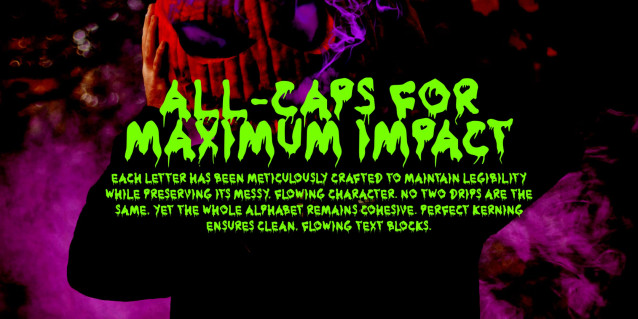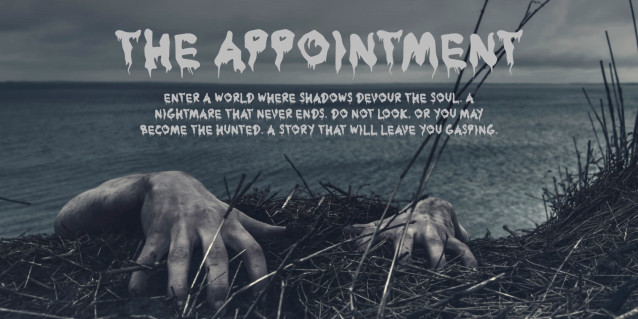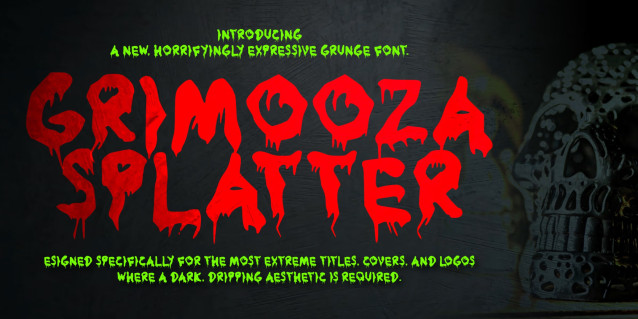
Grimooza Splatter Spooky Font
Grimooza Splatter is a bold and chaotic horror display font inspired by dripping slime, spooky creatures, and vintage monster aesthetics. Its irregular, melting letterforms create an eerie and playful atmosphere, making it perfect for Halloween-themed projects, horror movie posters, game titles, YouTube thumbnails, party invitations, merchandise, and eye-catching branding. With its distinctive handcrafted look and strong visual impact, Grimooza Splatter brings a creepy yet fun personality to any design that demands attention. Ideal for spooky headlines, themed events, comic covers, social media graphics, and unforgettable horror-inspired creative projects.
Featuring a gritty texture, raw strokes, and dynamic ink splatter details, this font captures a rebellious street art and underground subculture aesthetic. It is meticulously designed to bring a powerful, high-energy impact to creative projects. Ideal for t-shirt graphics, streetwear designs, metal or punk music album covers, horror-themed merchandise, game titles, action sports promotion, and striking poster layouts. Grimooza Splatter is the perfect typographic choice for creators looking to infuse their work with an aggressive, unconventional, and dark artistic flair.